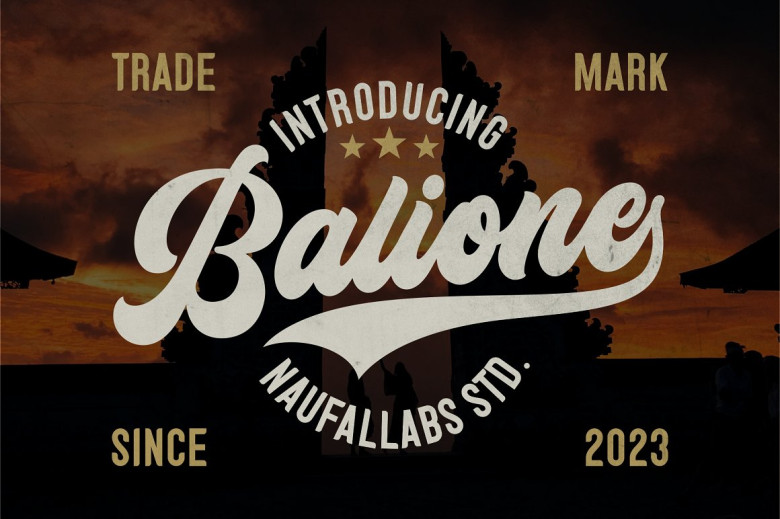
Balidone Font
Balidone is a retro script font with a unique and stylish design that will transport you back to the past. With the vintage vibe of its typography, Balidone adds a touch of nostalgia to any design project and is perfect for doers who want a look from times gone by.
This font was designed to capture the essence of retro typography: letters with bold geometric forms that speak to an era past. This is ideal for logos, headlines, posters and anything else where you need large and bold strokes.
Balidone Calligraphy Script Font